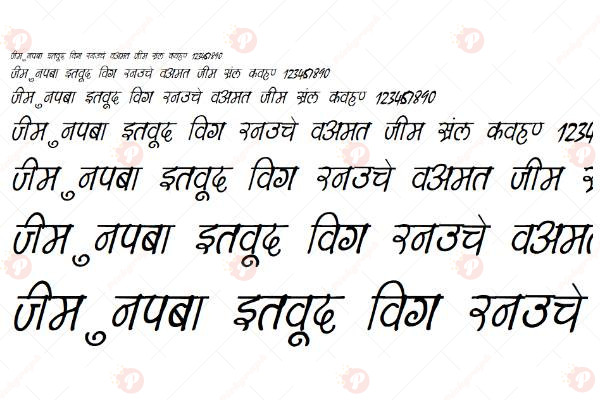
The Maya Italic Font brings a graceful slant to traditional Devanagari typography. With its smooth italic design, it creates a stylish and expressive look for Hindi, Sanskrit, Marathi, and Nepali text.
Perfect for wedding invitations, festival posters, devotional books, banners, and social media graphics, the Maya Italic Font balances tradition and modern creativity. Its flowing italic style adds motion and elegance, making your words stand out beautifully while preserving the authenticity of the script.
Supported Script: Devanagari (Hindi / Sanskrit / Marathi / Nepali)
Font Style: Italic / Slanted / Traditional Typeface
| Optimum Size | Large (Display / Poster) |